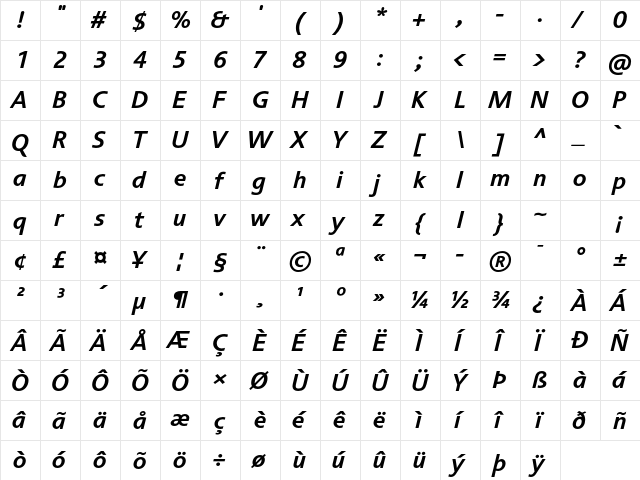
Cisalpin LT Std Bold Italic Font Preview
| Foundry | Linotype GmbH |
| Designer | Felix Arnold |
Design Context for Cisalpin LT Std Typeface
Cisalpin LT Std takes a measured approach to typography — its balanced proportions and neutral character make it a reliable workhorse for both digital and print work. The dynamic lean of this cut emphasises speed and emphasis in any layout. The heavy weight commands attention and anchors typographic hierarchies.
Pro Tip: Try Cisalpin LT Std for annotation and caption copy alongside an upright companion — the contrast in angle creates a dynamic but ordered typographic system.